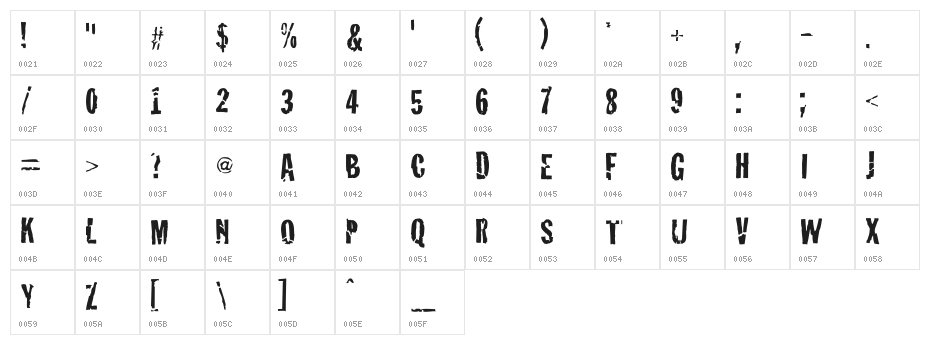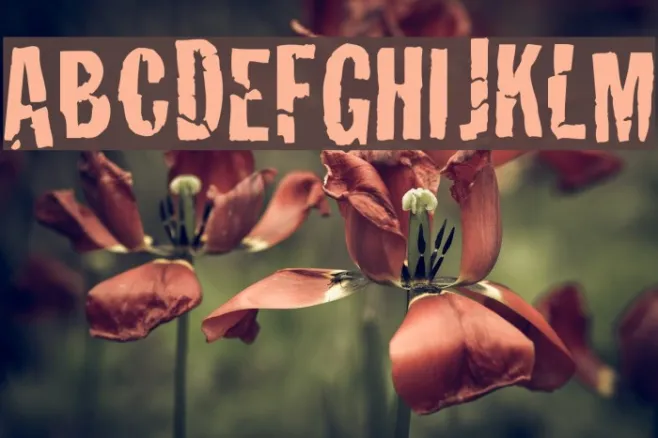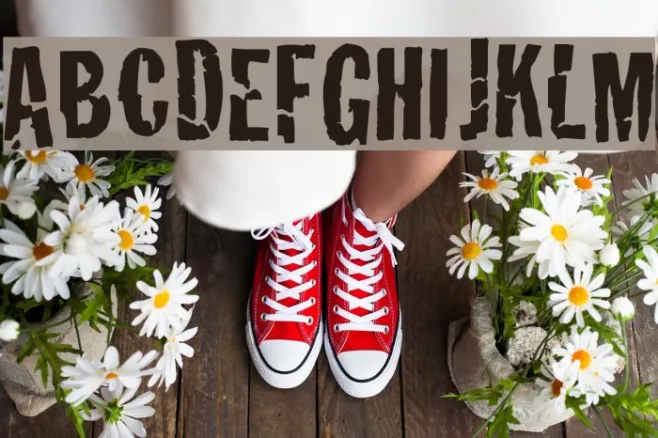
Crackhouse Font
Crackhouse Description
This font features a rugged, distressed appearance, reminiscent of worn-out stencils or graffiti. The characters are bold and irregular, with rough edges and a grunge aesthetic that gives them a rebellious, urban feel. The uppercase and lowercase letters maintain a consistent style, with the uppercase being slightly more pronounced. Numbers and special characters follow the same distressed pattern, adding to the overall cohesive look. This font is ideal for projects that require a gritty, edgy vibe, such as music album covers, posters, or streetwear branding.
| Overall Style | Grunge, Urban |
| Proposed Projects | Ideal for music album covers, edgy posters, streetwear branding, and urban-themed designs. |